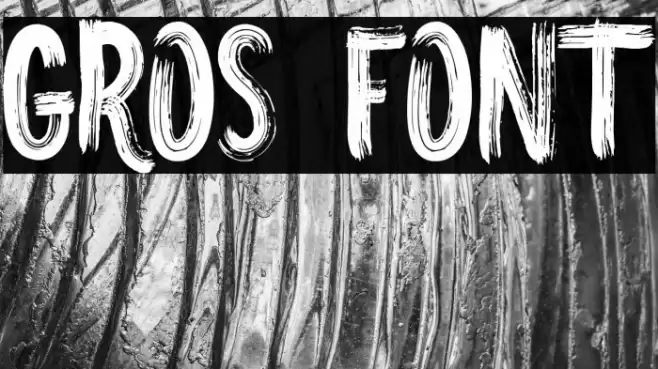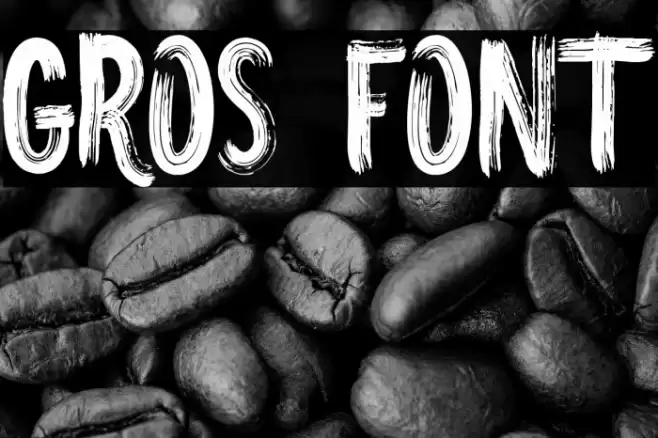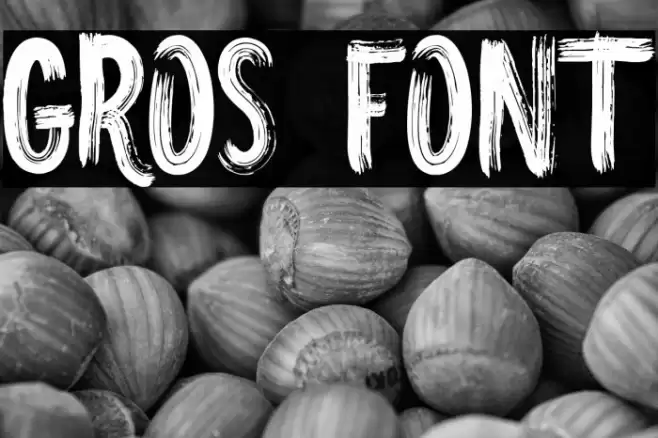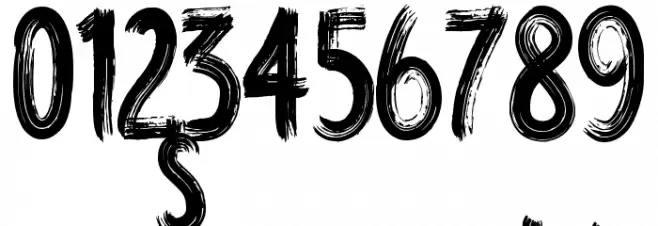
Gros Font
Gros Description
This font features a bold, brushstroke style that exudes energy and dynamism. Each character appears as if it has been hand-painted with a thick brush, creating a textured and artistic look. The strokes are uneven, adding a sense of movement and spontaneity. The uppercase and lowercase letters maintain a consistent style, with the numbers and special characters following suit. This font is perfect for projects that require a bold statement or an artistic touch, such as posters, album covers, or branding for creative industries.
A bold, brushstroke font with an energetic and artistic style from Regular fonts.
- Proposed Projects: Ideal for posters, album covers, branding, and creative projects.
- Contrast: High
- Overall Style: Artistic, Energetic